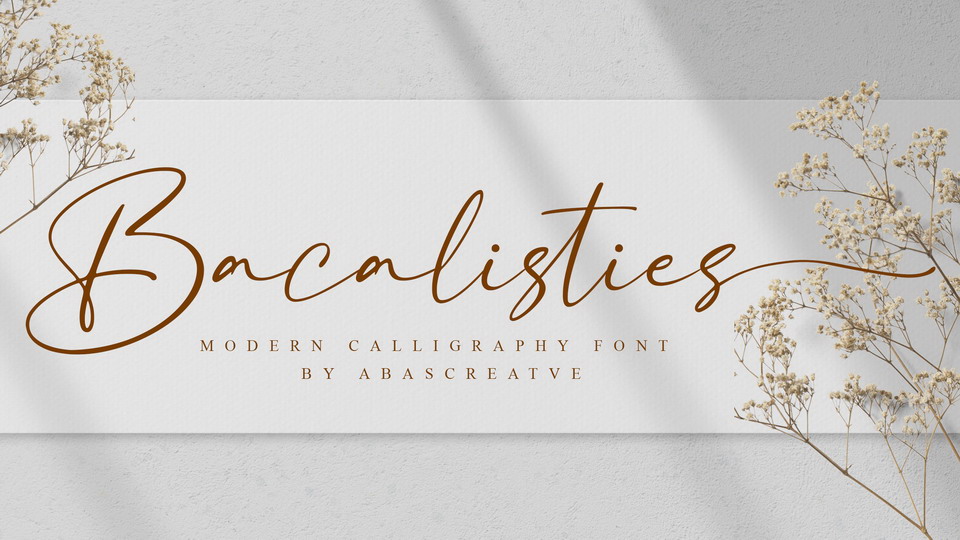
Feb 9, 2025Script & HandwrittenBacalisties Font Bacalisties is a stylish and delicate handwritten font. It has a clean, thin and smooth vibe and it will be a hit for any design that you want to add it to. Font DetailsDesigned by: Abas CreativeWebsiteLicense: Free for personal use Download Bacalisties FontFile size: 30.55 KBCreated: February 16, 2025Updated: February 16, 2025 Download Explore related fonts Belphia Font Autograph Westhelin Font Honeycomb Font Santtory Roasted Font Biancha Font Richmond Woodhaven Font Rollingdoor Font Angel Book Signature Font # Calligraphy# Casual# Cursive# Handwriting# Signature More fonts by Abas CreativeAishiteru Lover FontAmstajul Bafett FontHathem Bosteem Script